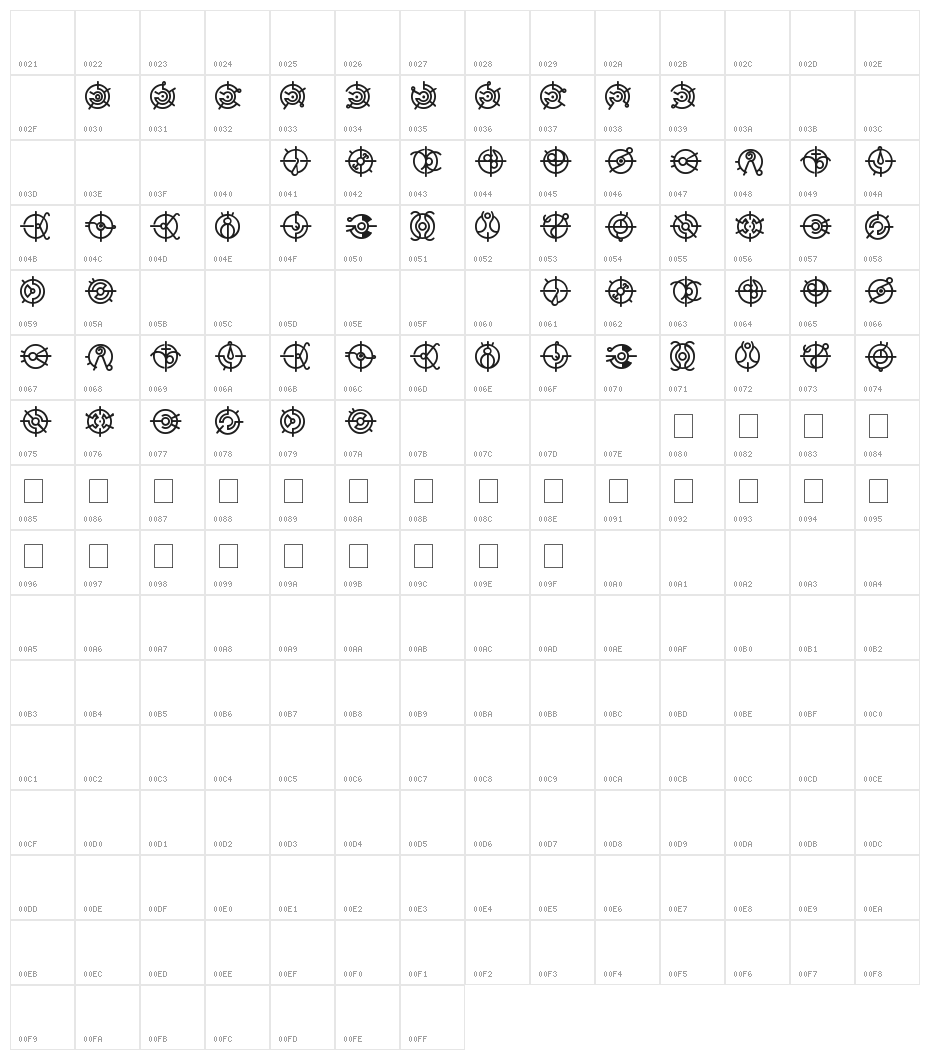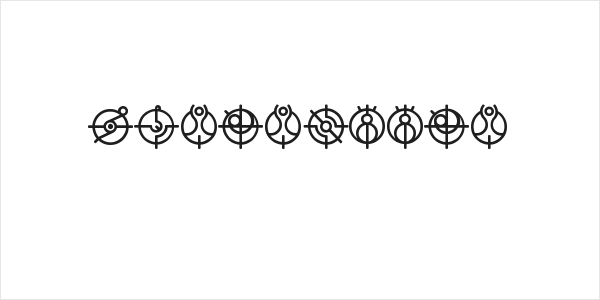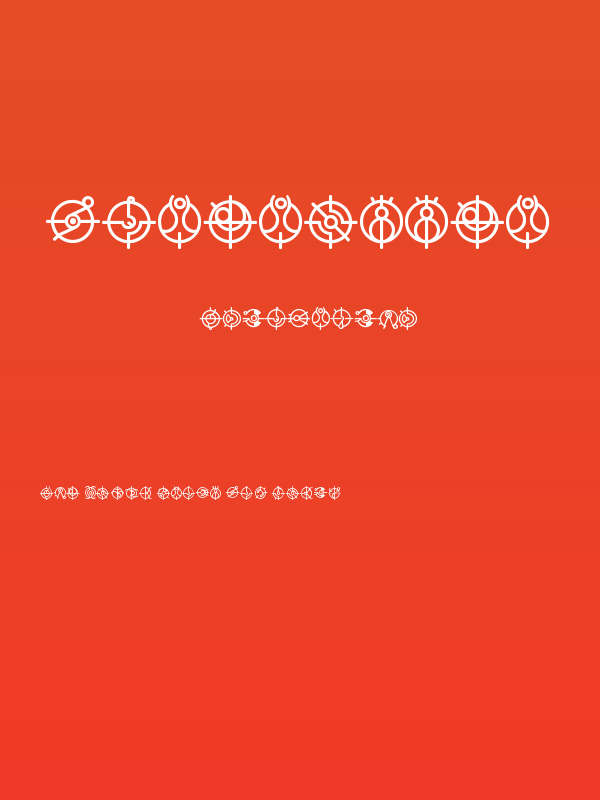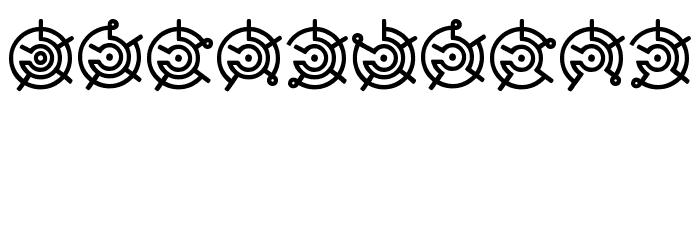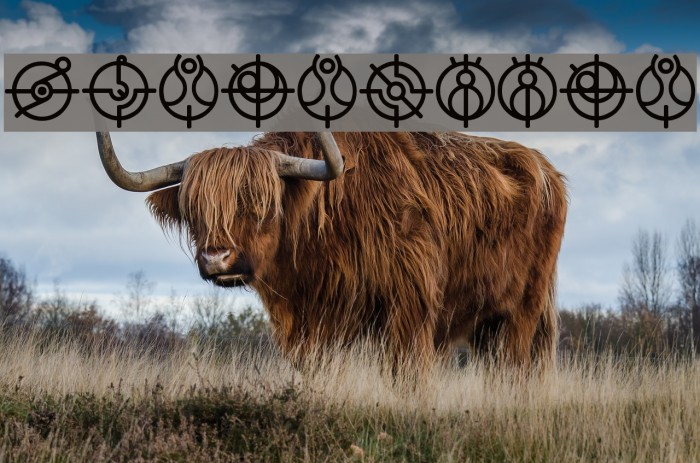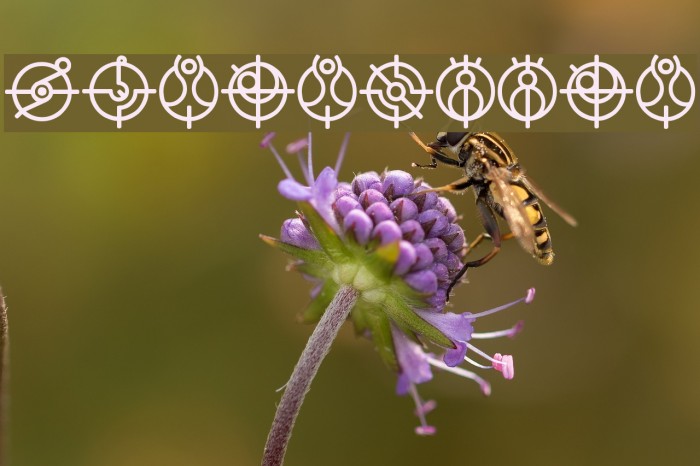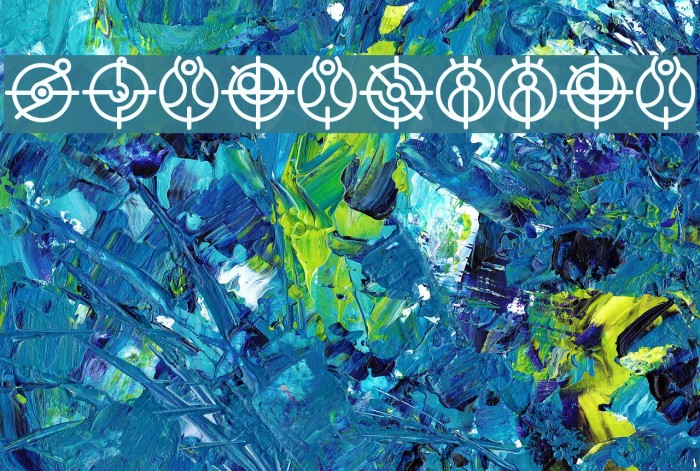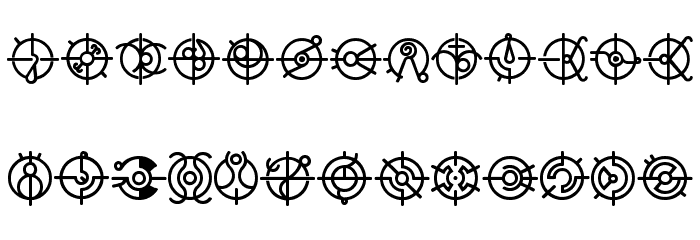
Forerunner Font
Forerunner Description
This font features a highly decorative and abstract design, characterized by circular and geometric patterns that resemble futuristic symbols or glyphs. Each character is encased within a circular boundary, with intricate lines and shapes intersecting to form unique and complex designs. The style is reminiscent of ancient scripts or alien languages, offering a mysterious and avant-garde aesthetic. The uniformity of the circular enclosures provides a cohesive look, while the internal variations create visual interest. This font is ideal for projects that require a sense of enigma or otherworldliness.
| Overall Style | Futuristic, Abstract, Decorative |
| Use Case | Logos, Posters, Titles, Themed Events |
| Proposed Projects | Ideal for sci-fi themed designs, video game interfaces, movie posters, or any project needing a mysterious, futuristic touch. |